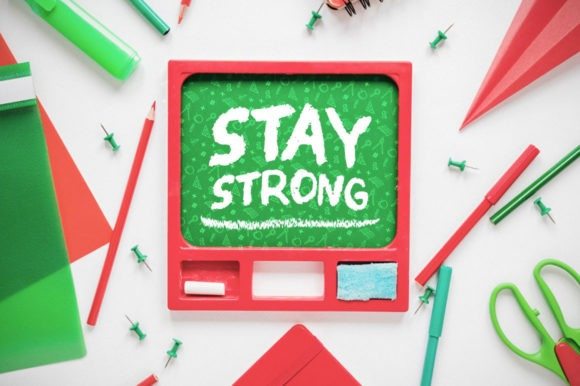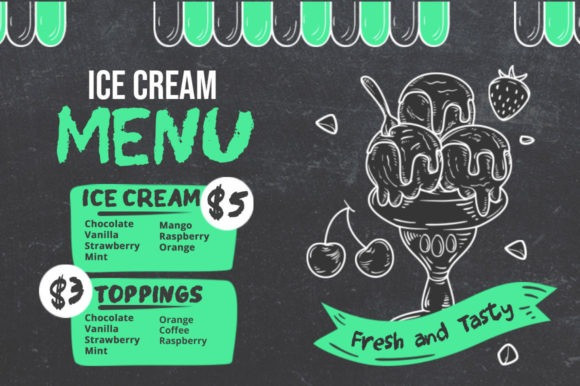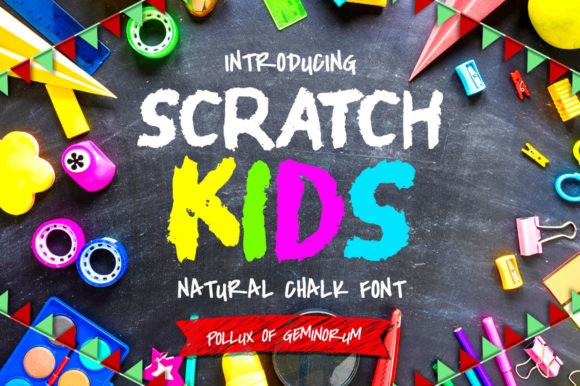
Scratch Kids Font
Scratch Kids Font is a cute and friendly display font. It is suitable for fun stuff such as logos, invitation, banner, social media, posters and more.